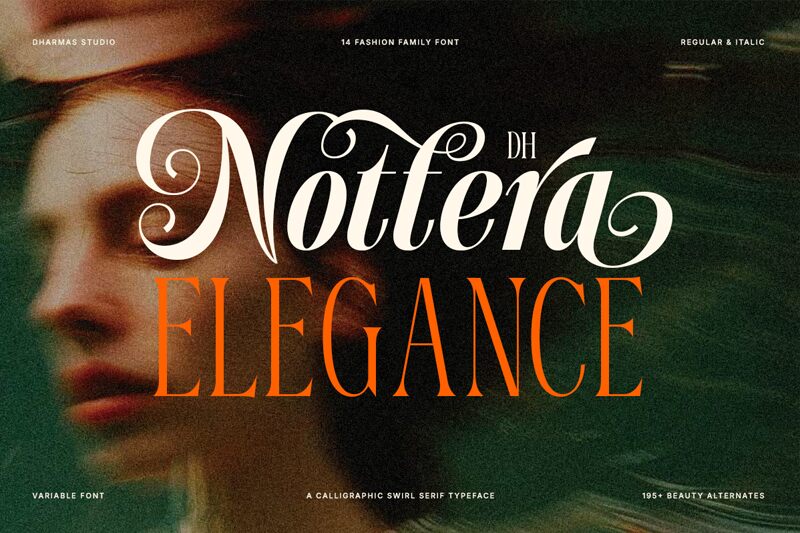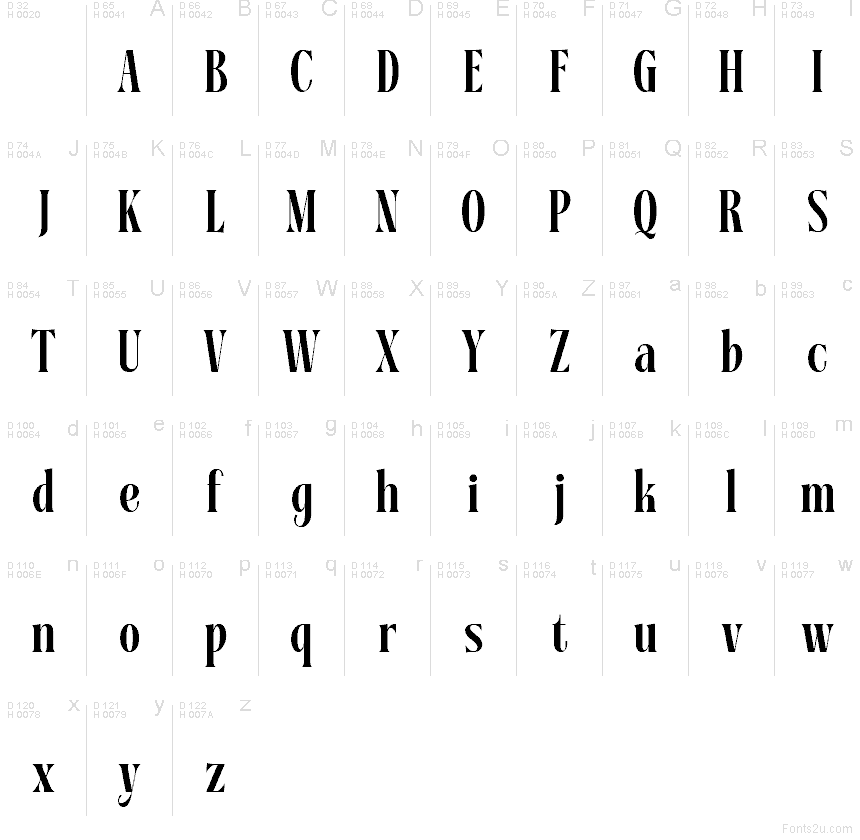
Dh Nottera Elegance DEMO Bold
Dh Nottera Elegance Bold font by Dharmas Foundry is a free fashion serif typeface with a tall, razor-slim stance that instantly feels editorial. Its vertical rhythm and elongated shapes create a sleek, runway-ready presence, while the firm, inky strokes add just enough weight to keep it readable. Sitting within the Dh Nottera Elegance family, this bold style brings drama and polish without feeling fussy.
Using Dh Nottera Elegance Bold, headlines feel like magazine mastheads, fragrance logos, or high-end boutique signage. This free font shines on posters, luxury packaging, invitations, social media quotes, and hero banners where you want a refined, spotlight effect. For body copy, pair it with a clean geometric sans at smaller sizes and let Dh Nottera Elegance Bold handle the big, attention-grabbing words.